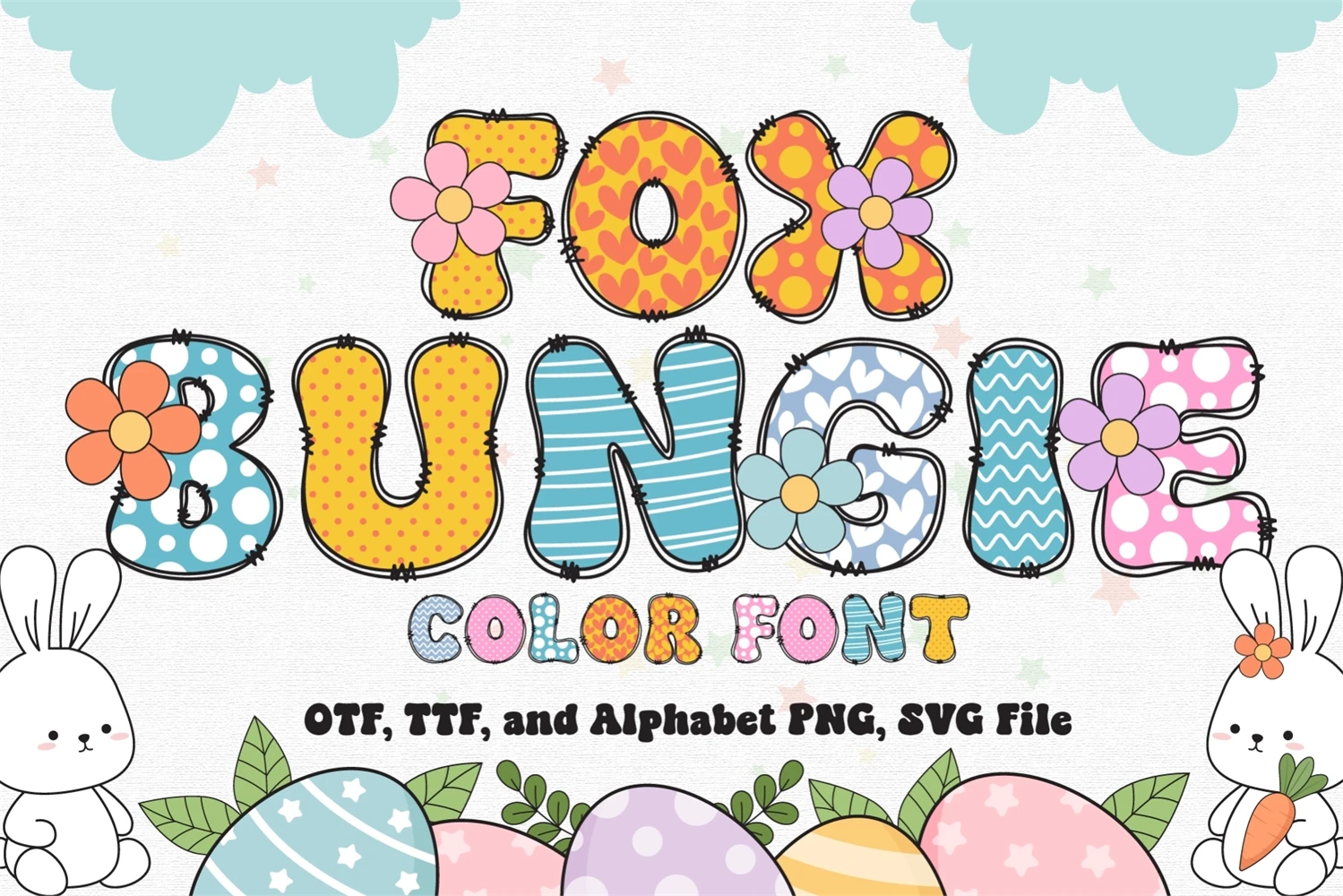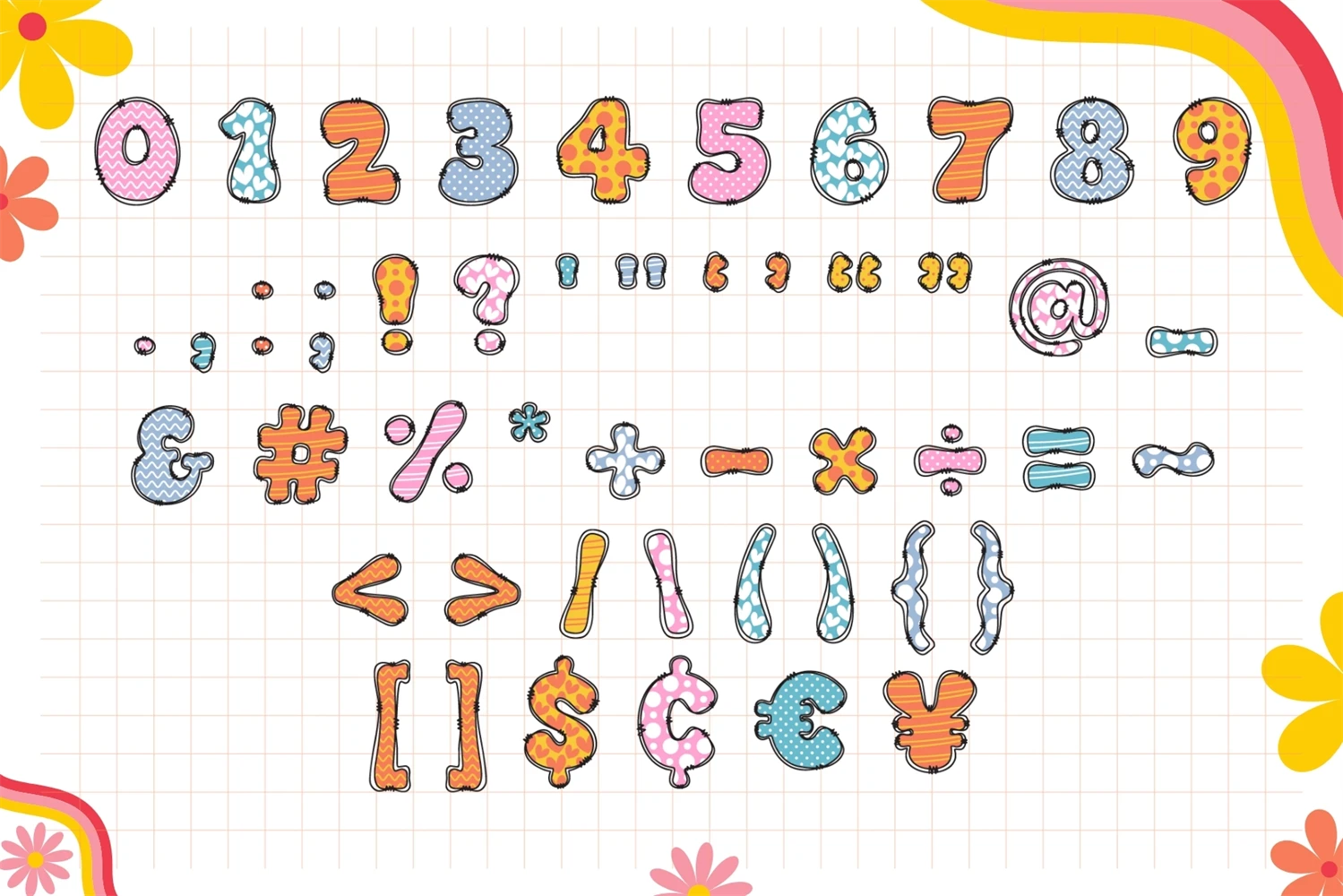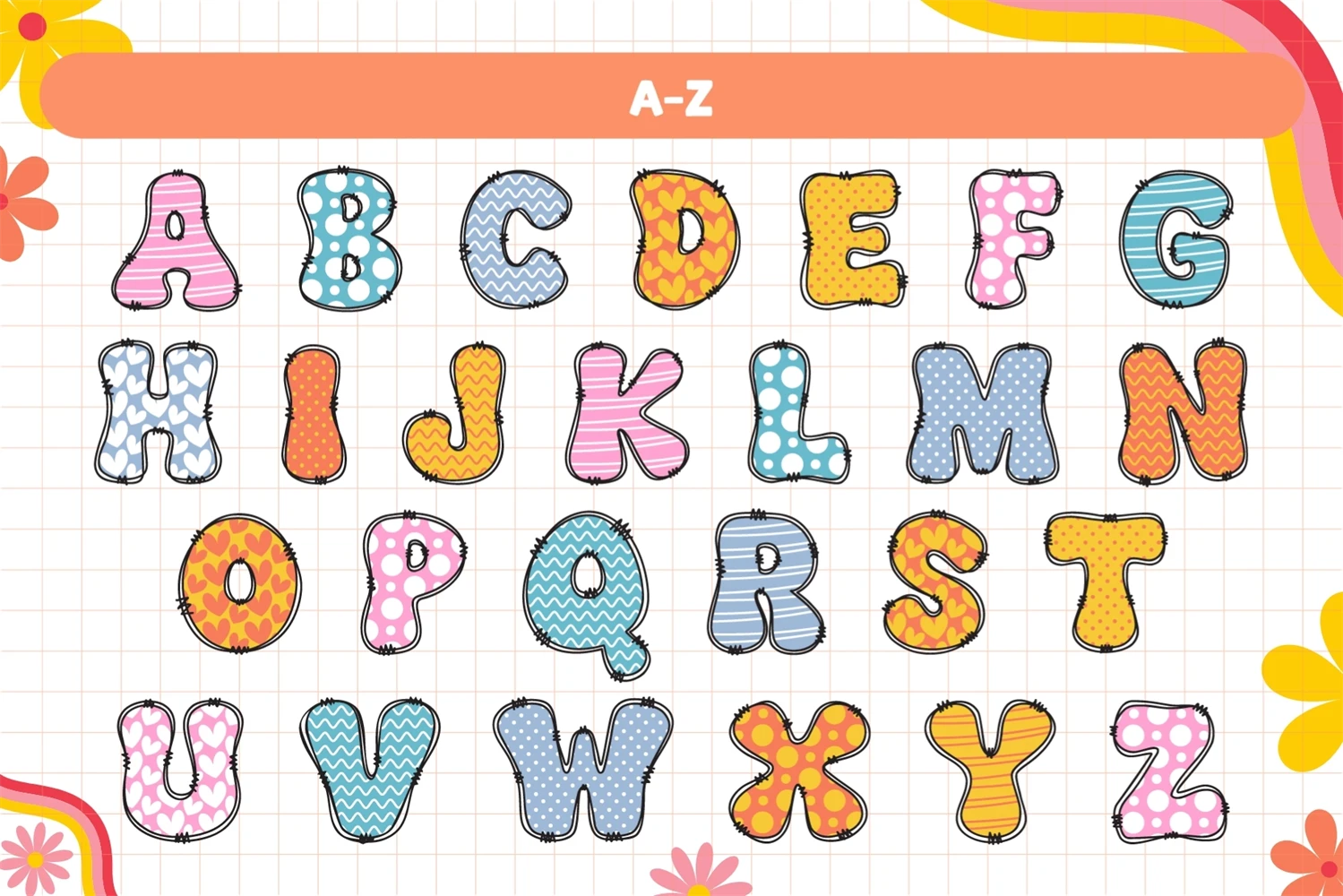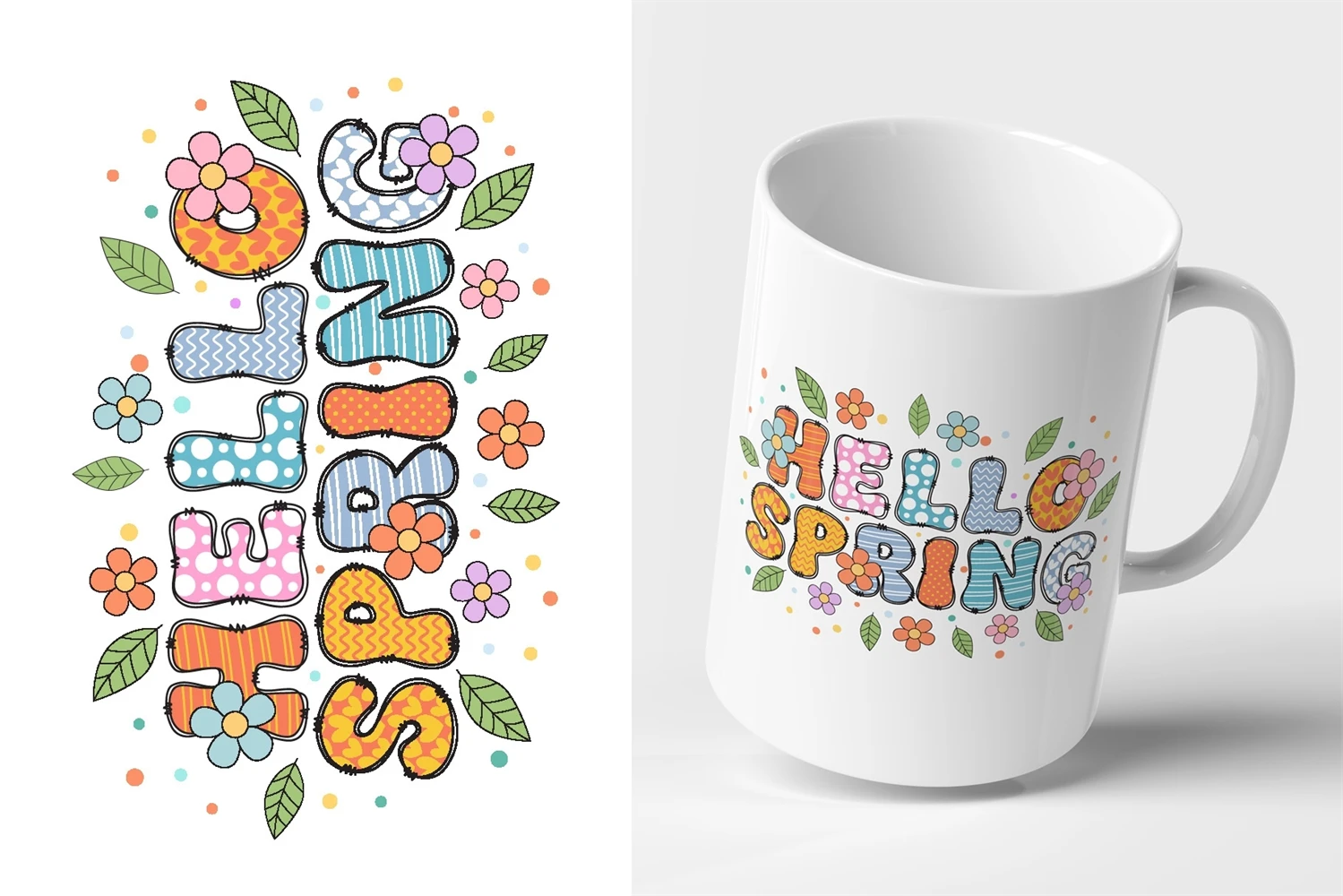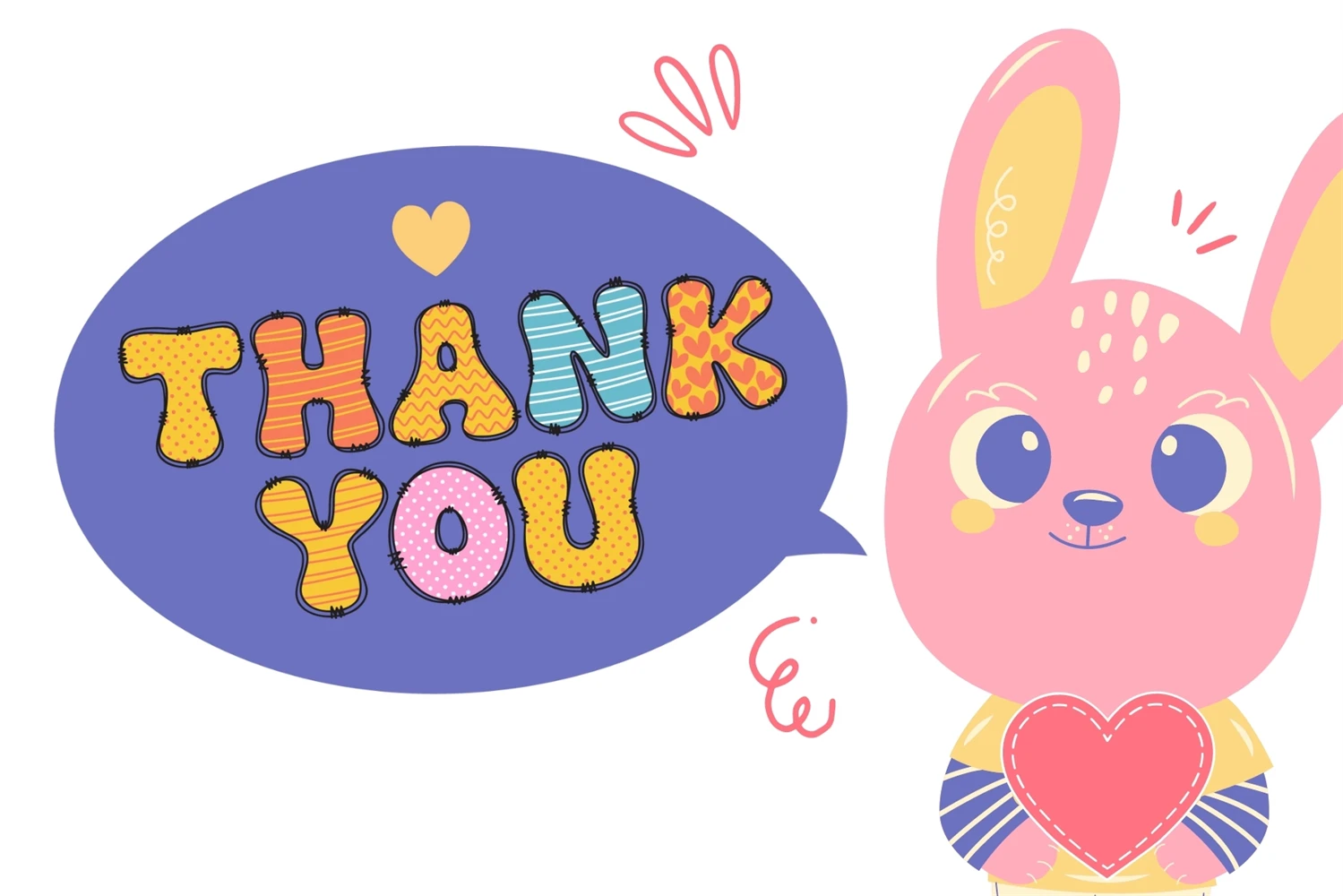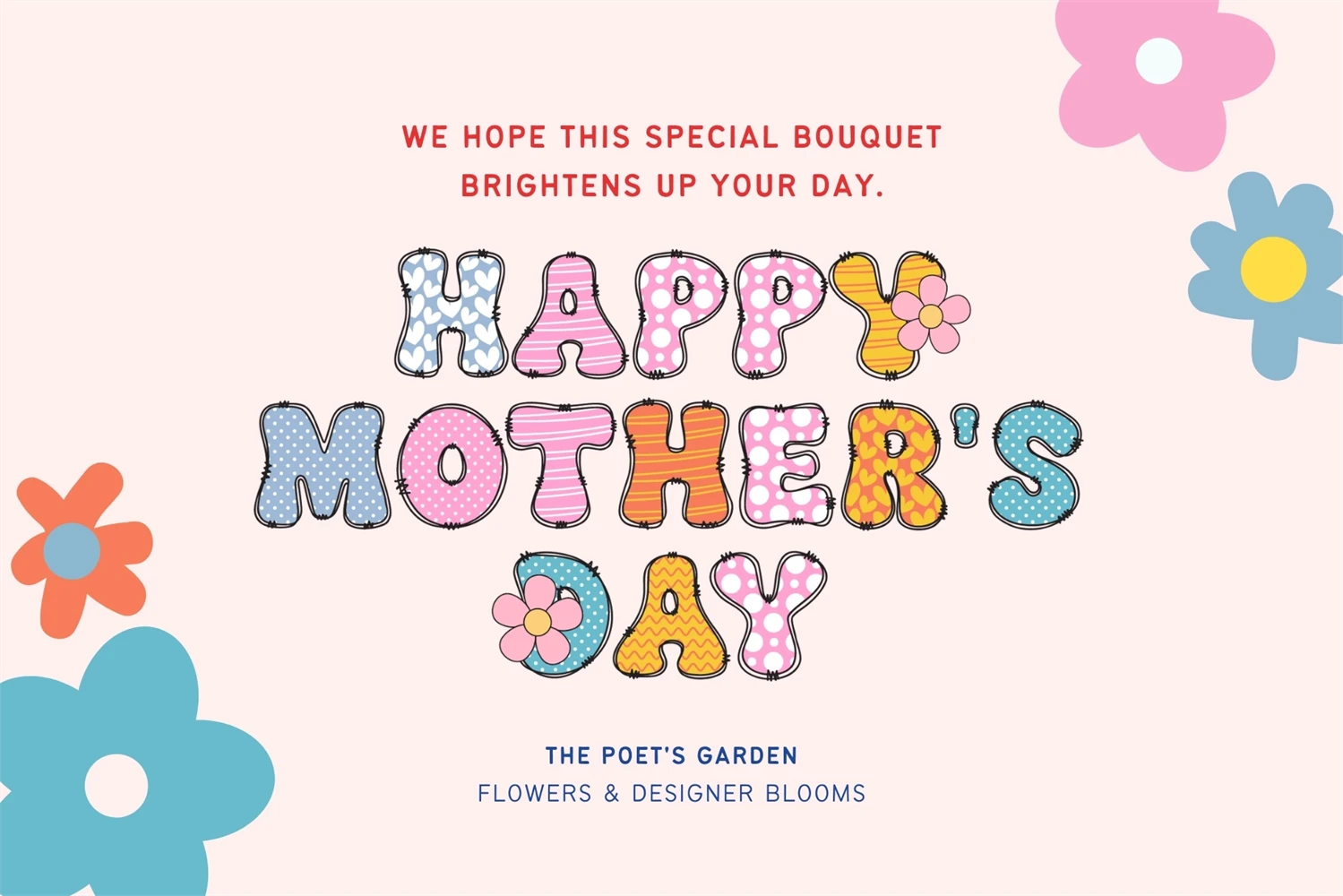
Fox Bungie is a cute and fun Color font. You can use it for various projects, such as blog posts, logos, branding, ads, invitations, greeting cards, planners, photo albums, decorations, and much more. Add it to any of your designs, and enjoy the results!